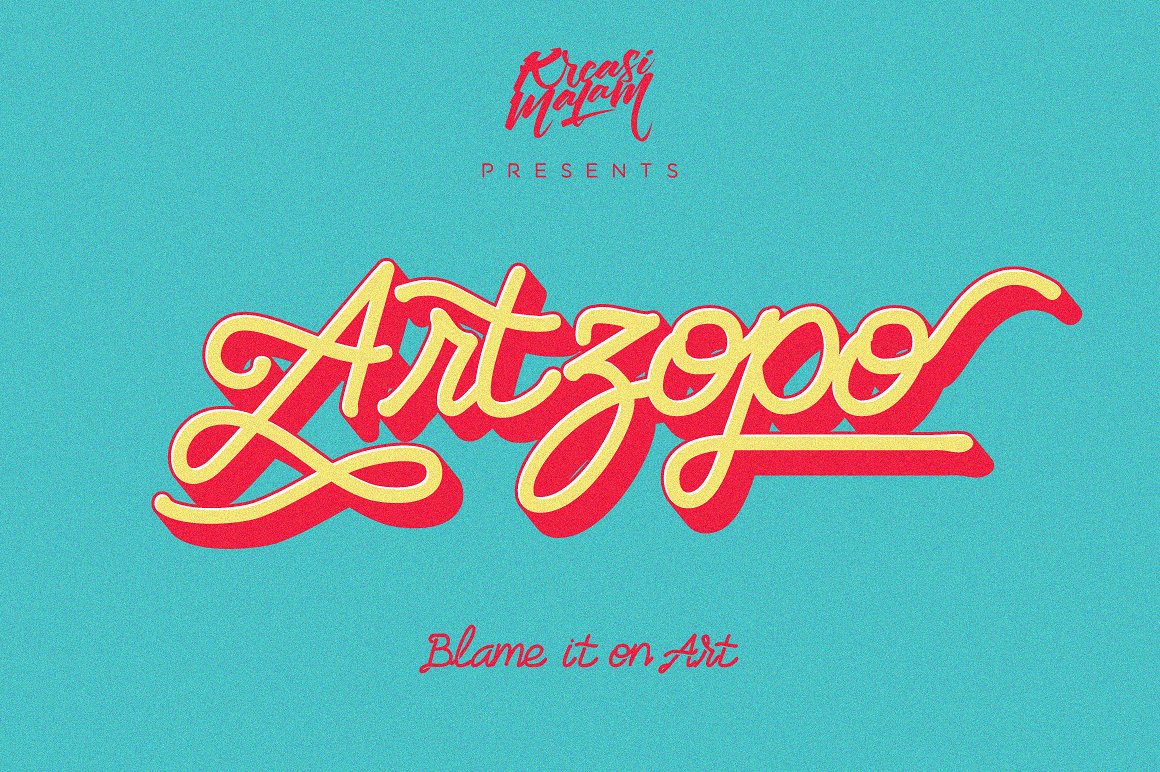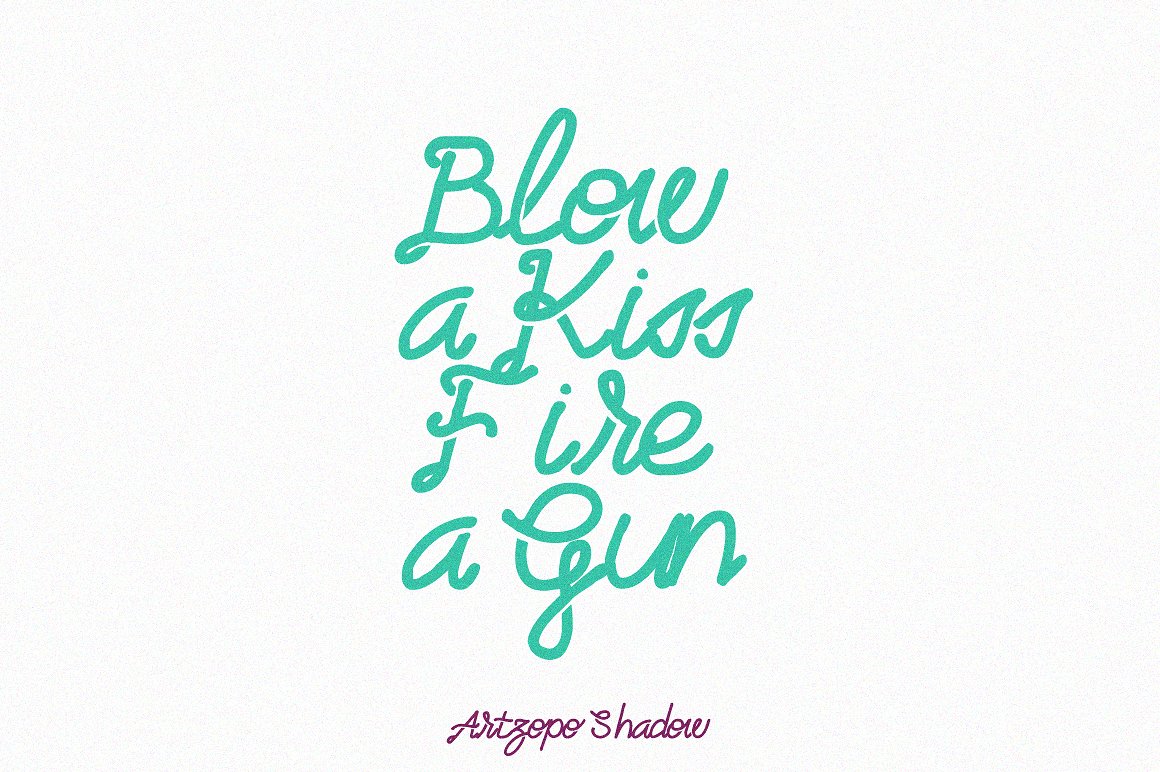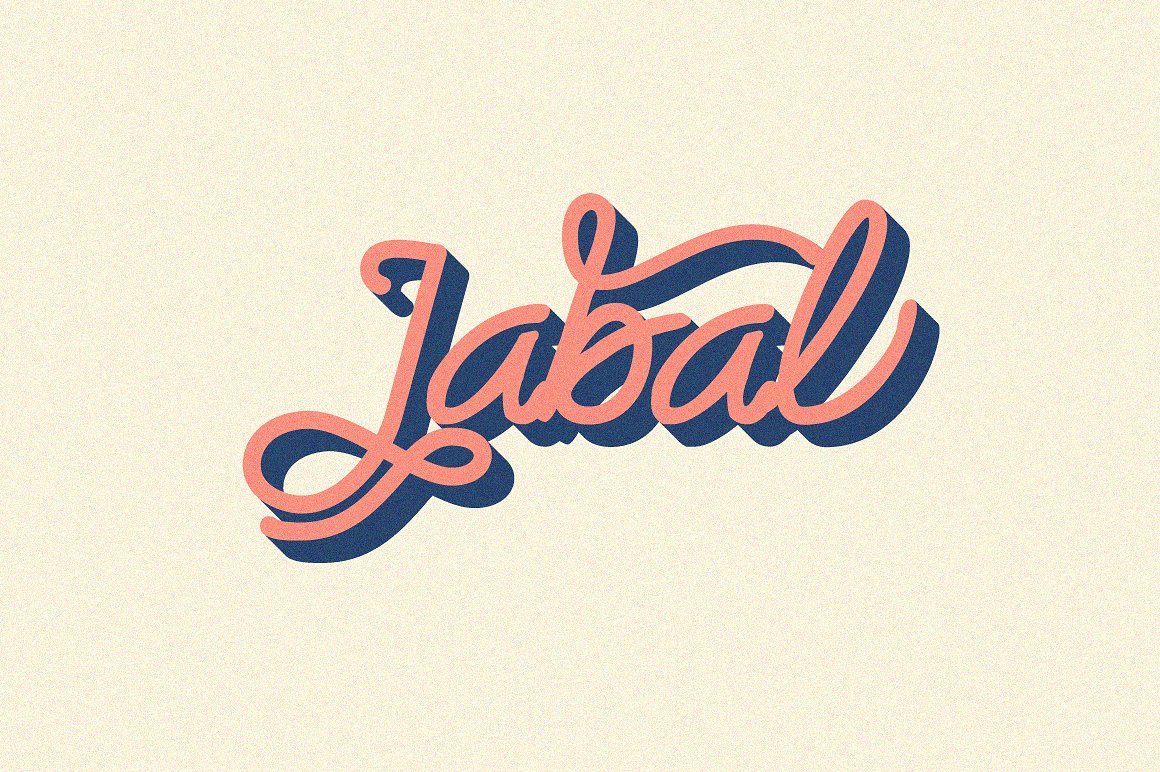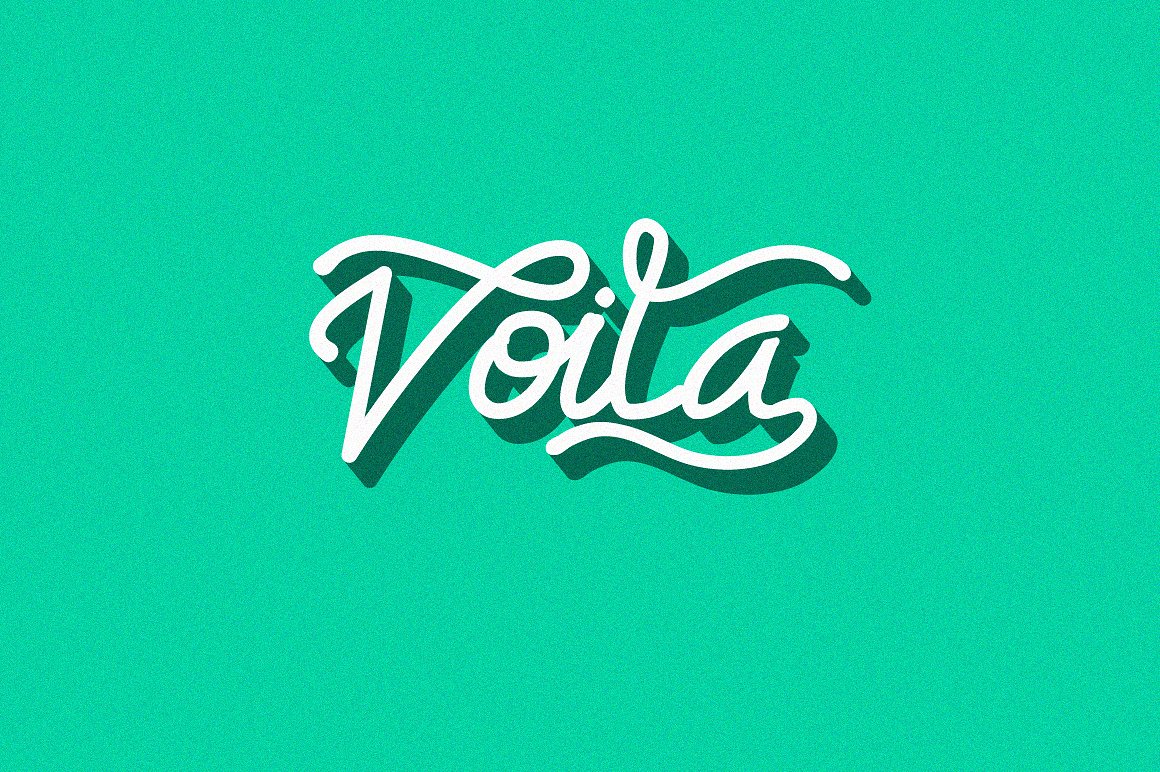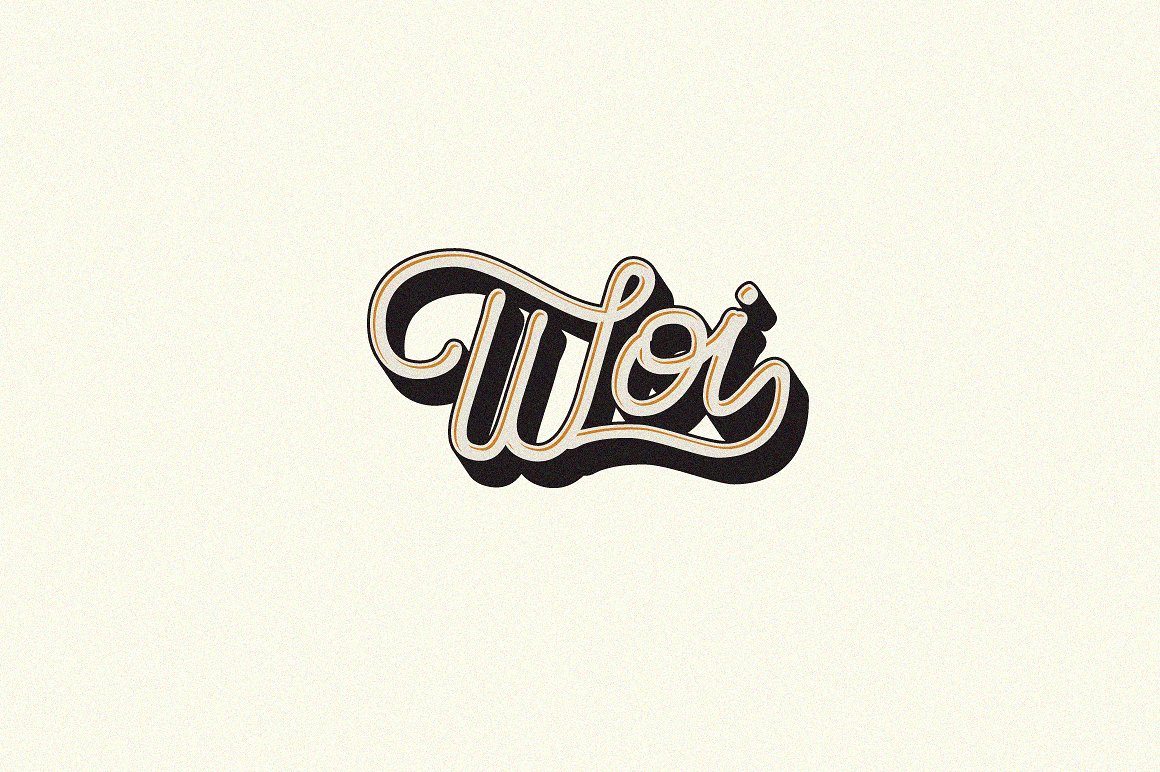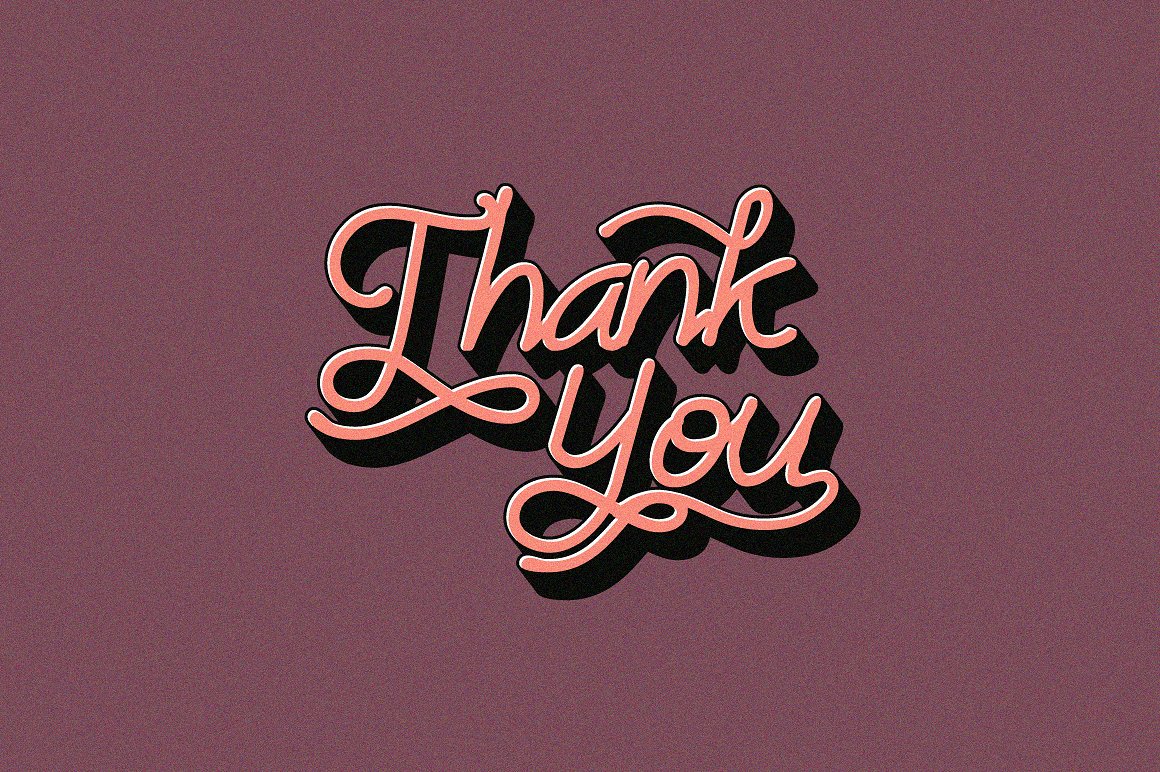
Artzopo Font
About Artzopo Font
Artzopo is a handmade OpenType font that will add a unique touch to your design projects.
It works great with many different types of projects.